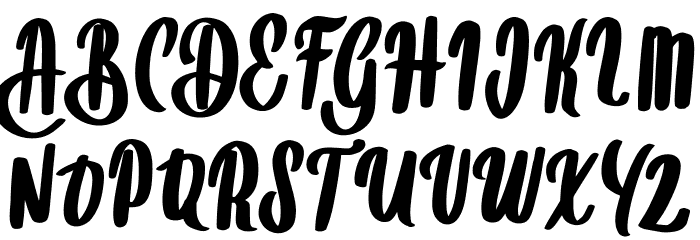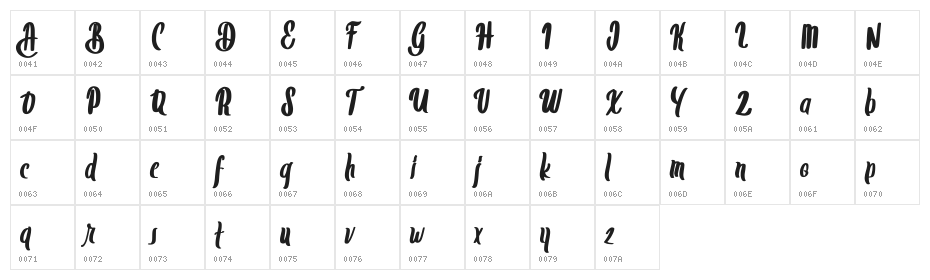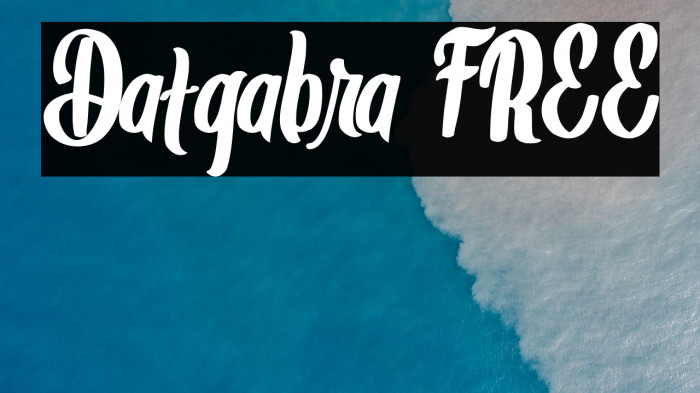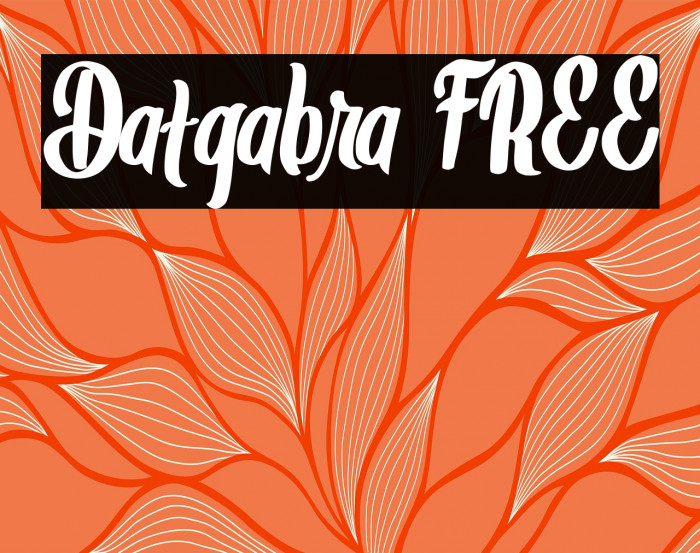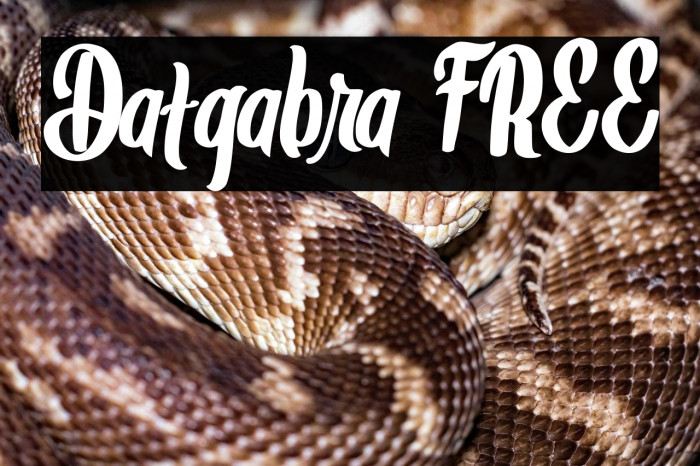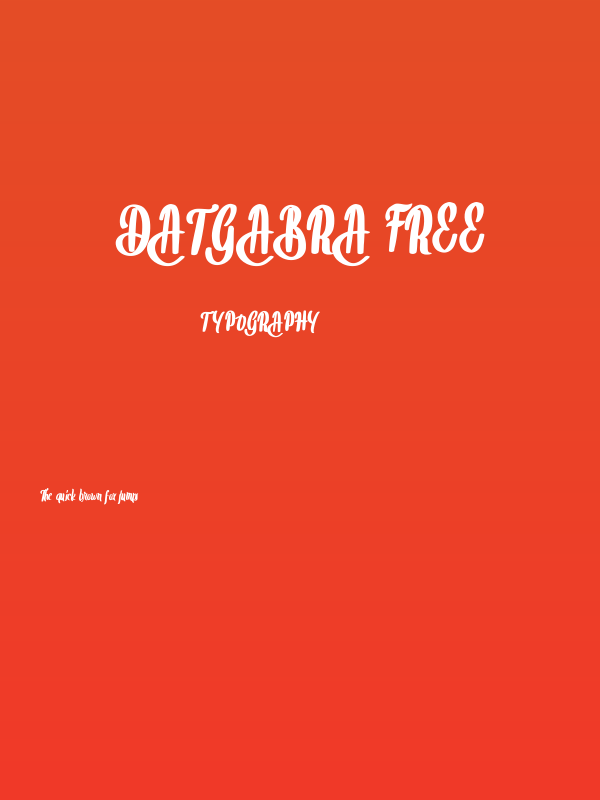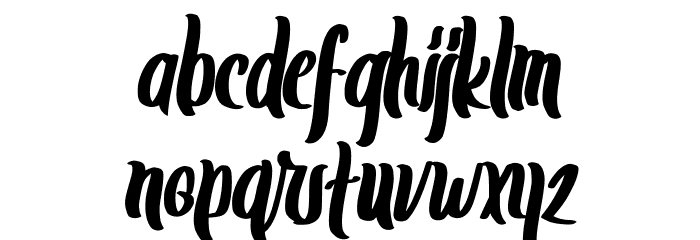
Datgabra FREE Font
Datgabra FREE Description
This font features a bold and expressive script style with a flowing, cursive design. The characters are interconnected with smooth, rounded edges, giving it a dynamic and lively appearance. The uppercase letters are particularly ornate, with some featuring exaggerated loops and swashes that add to the decorative nature of the font. The lowercase letters maintain a consistent style, with a slightly more restrained flourish. The numbers and special characters are designed to match the overall aesthetic, ensuring a cohesive look across all text. This font is ideal for creating eye-catching headlines or logos that require a touch of elegance and flair.